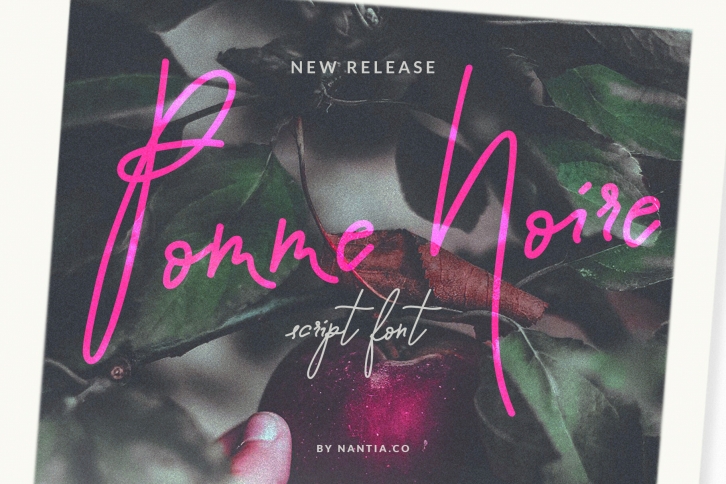
Script Greek Font Pomme Noire
The Script Font Pomme Noire is a signature decorative font with which you can achieve a handwritten-type lettering feeling. Script Font Pomme Noire it's a multilingual lettering font with Greek (of course), Basic Latin characters. This signature style is perfect for your modern graphic design needs. It can be used on social media content, for branding or packaging.
Also, Script Font Pomme Noire is the ideal typeface for organic products branding and packaging. Additionally, you can use Script Font Pomme Noire for editorial designs. Especially if you are looking for a font for Instagram quote posts or any other social media content, this typeface is for you!
• Basic Latin Character Set
• Greek Character Set
Script Greek Font Pomme Noire is a Greek font and an Extended Latin Font and that makes it a multilingual font. You can check that on the test drive below.